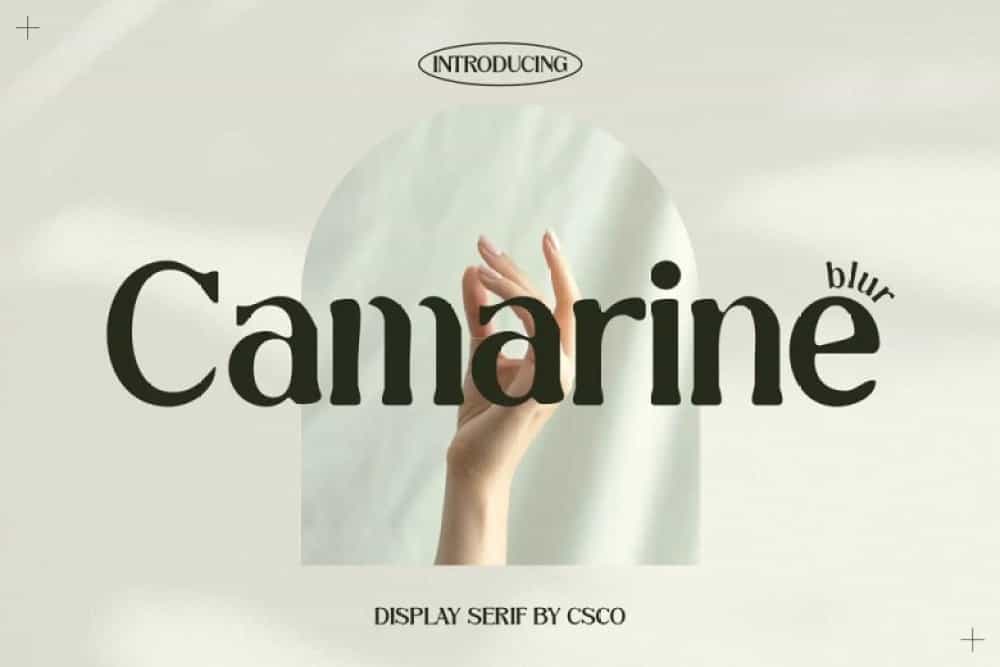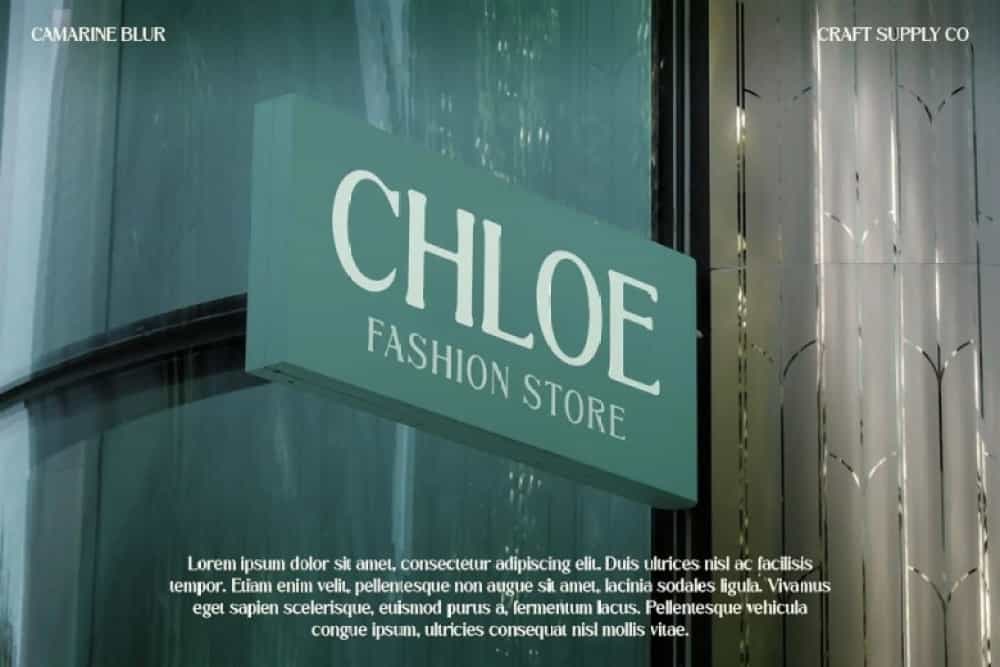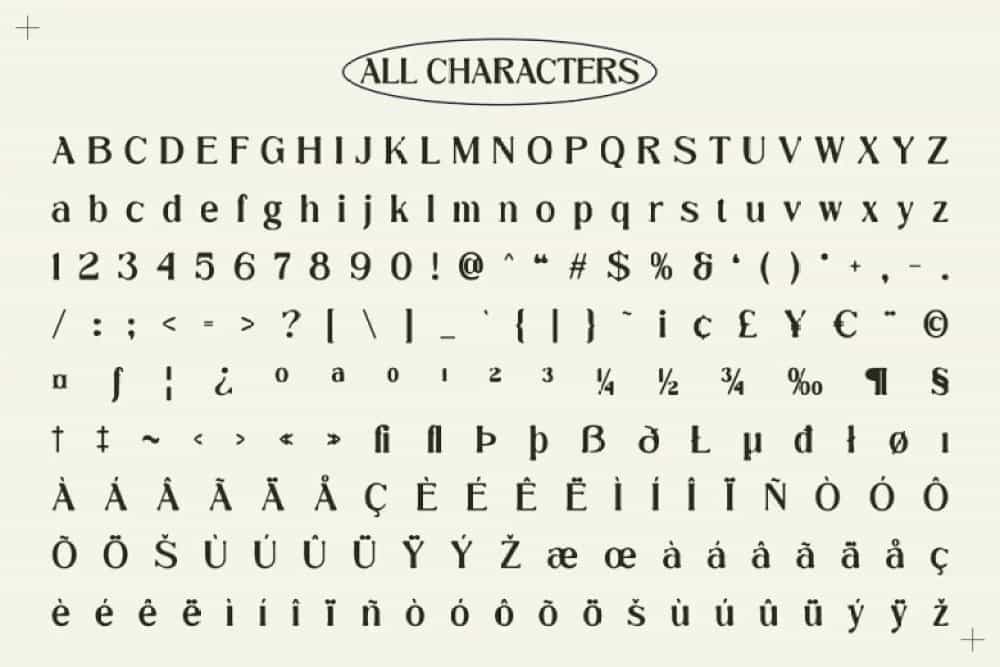
Camarine Blur is a modern serif font that incorporates nice serif details with a smooth blur effect. This font is quite original and is likely to give any design a new and attractive style, which makes it ideal for designs that seek to stand out in elegance. Camarine Blur is well suited for projects that are to be posh and at the same time contain elements of modernity.